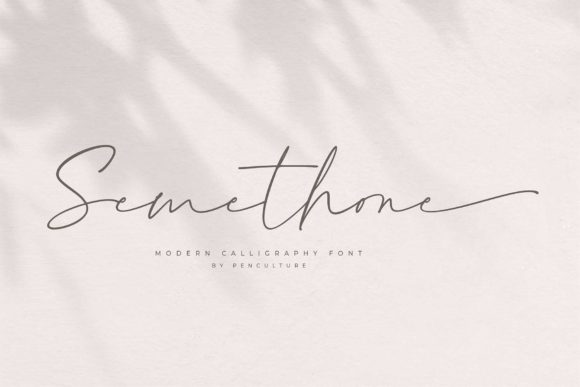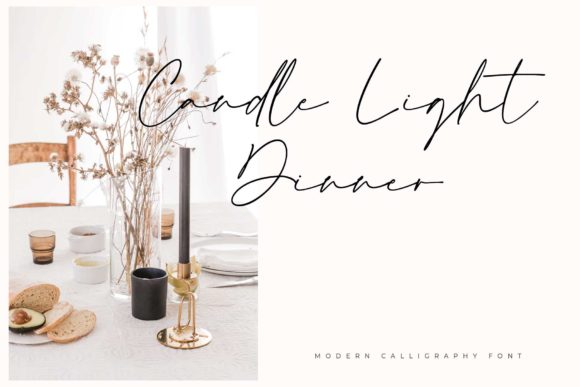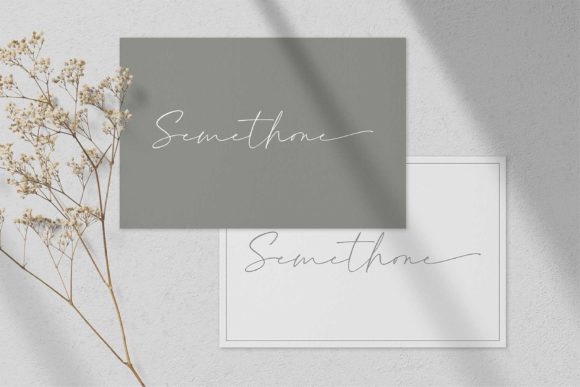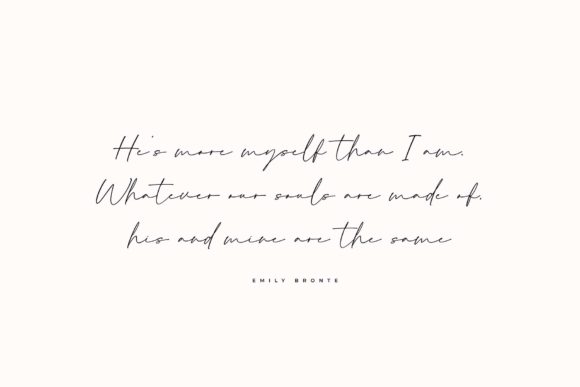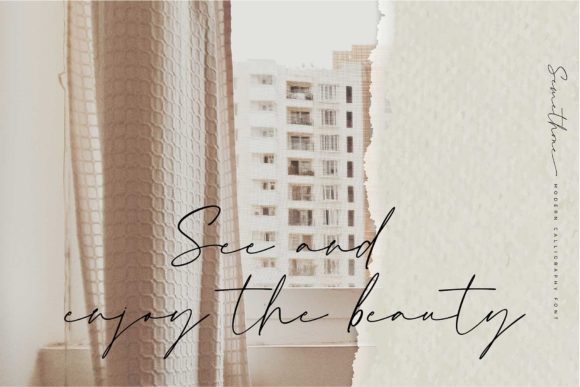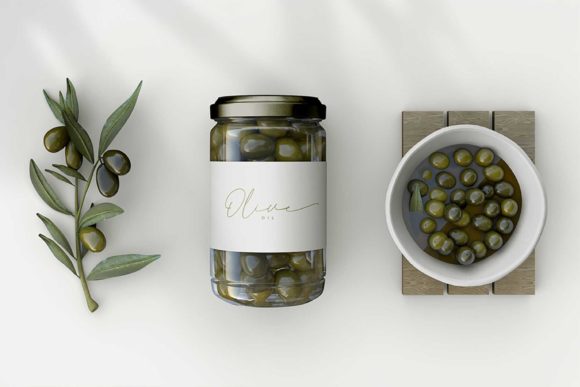
Semethone Font
About Semethone Font
Semethone is a magical script font carefully created with a touch of elegance. Whether you’re looking for fonts for Instagram or calligraphy scripts for DIY projects, this font will turn any creative idea into a true piece of art!
Semethone is also PUA encoded which means you can access all of the glyphs and swashes with ease!